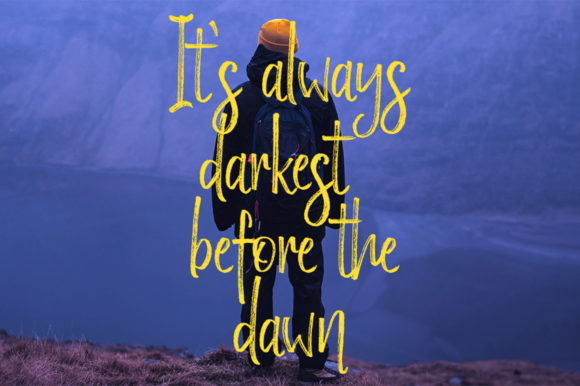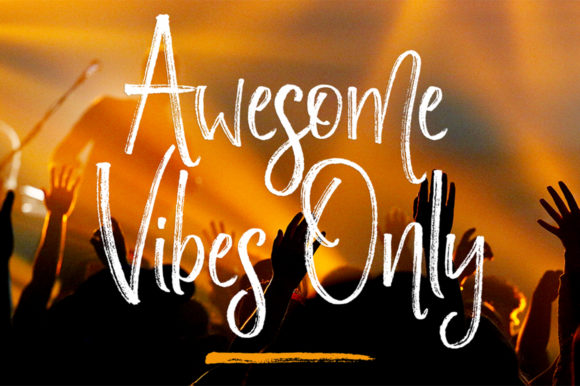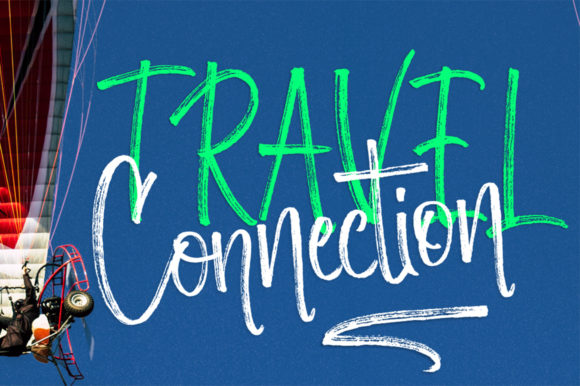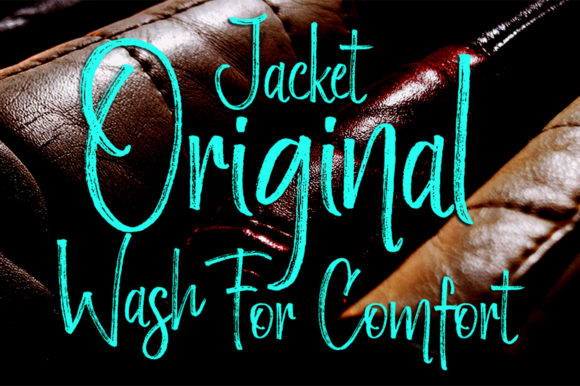
Discover the Charm of Emilston Font: A Handwritten Gem for DIY Projects
Are you tired of using the same old fonts for your DIY projects? Do you want to add a personal touch that makes your creations stand out? Look no further than Emilston Font, a stunning handwritten font that is sure to capture your heart. In this article, we’ll dive into the unique features of Emilston Font and explore how it can bring a touch of authenticity and charm to your DIY projects.
The Story Behind Emilston Font
Emilston Font is the result of a beautiful pairing of a brush pen and pencil, which gives it an endearing and authentic look. The font’s creator has skillfully combined these two mediums to produce a truly unique and captivating handwritten font. The result is a font that exudes warmth, personality, and a sense of human touch.
What Makes Emilston Font So Special?
So, what sets Emilston Font apart from other fonts? Here are a few features that make it truly special:
- Unique Handwritten Style: Emilston Font boasts a distinctive handwritten style that is both elegant and playful. Its flowing curves and subtle imperfections make it look like it was written by hand, adding a personal touch to any project.
- Authentic Look and Feel: The font’s creation using a brush pen and pencil gives it an authentic look and feel that is hard to replicate with digital fonts. This authenticity makes Emilston Font perfect for DIY projects, where a personal touch is often desired.
- Versatility: Emilston Font is incredibly versatile and can be used for a wide range of DIY projects, from crafting and scrapbooking to journaling and card making.
How to Use Emilston Font in Your DIY Projects
Using Emilston Font in your DIY projects is easy and fun. Here are a few ideas to get you started:
- Crafting: Add a personal touch to your crafting projects, such as knitting patterns, sewing projects, or paper crafting, with Emilston Font.
- Scrapbooking: Use Emilston Font to add captions and journaling to your scrapbook pages, giving them a personal and emotional touch.
- Journaling: Create beautiful and inspiring journal pages with Emilston Font, perfect for daily reflections, gratitude logs, or goal setting.
- Card Making: Add a touch of elegance and sophistication to your handmade cards with Emilston Font.
Tips for Getting the Most Out of Emilston Font
To get the most out of Emilston Font, here are a few tips:
- Experiment with Colors: Emilston Font looks great in a variety of colors, so don’t be afraid to experiment and find the perfect hue for your project.
- Mix and Match: Combine Emilston Font with other fonts or graphics to create a unique and eye-catching design.
- Play with Sizes: Emilston Font looks great in a range of sizes, from small and delicate to large and bold.
Emilston Font is a truly unique and captivating handwritten font that is perfect for DIY projects. Its authentic look and feel, versatility, and ease of use make it a must-have for designers and crafters. Whether you’re looking to add a personal touch to your crafting projects, scrapbooking, journaling, or card making, Emilston Font is sure to inspire and delight. So why not give it a try and see the magic it can bring to your DIY projects?